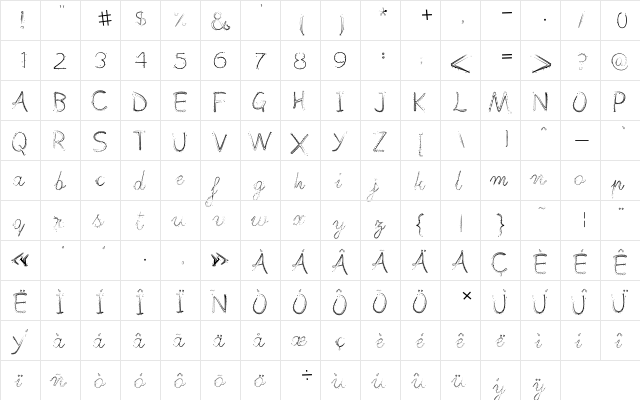
Typochok Black
Design Context for Typochok Typeface
Typochok is a composed and adaptable typeface that performs quietly and consistently across a wide range of design contexts.